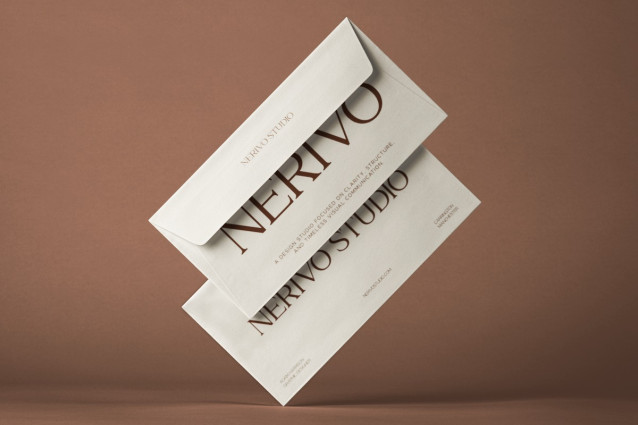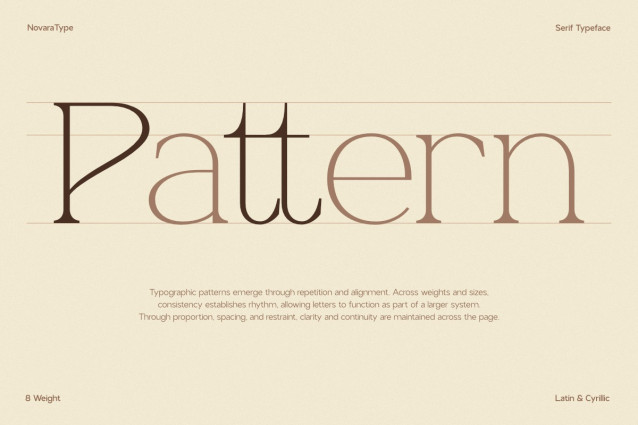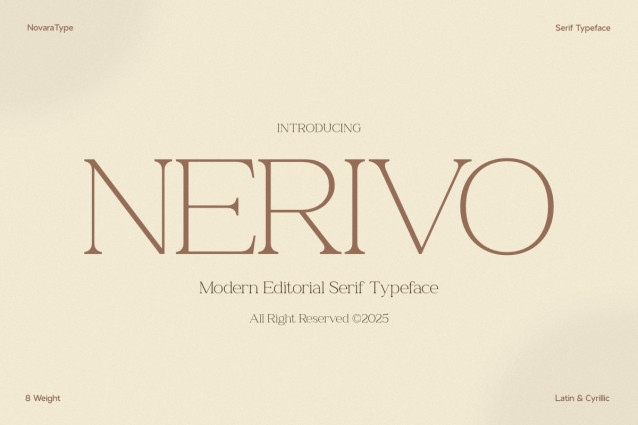
NV Nerivo Font
NV Nerivo Font is a refined modern serif type system designed to express elegance, readability, and timeless character. Developed by NovaraType, NV NERIVO blends classic serif foundations with contemporary proportions—making it an excellent choice for editorial layouts, branding identities, luxury designs, and sophisticated digital or print applications.